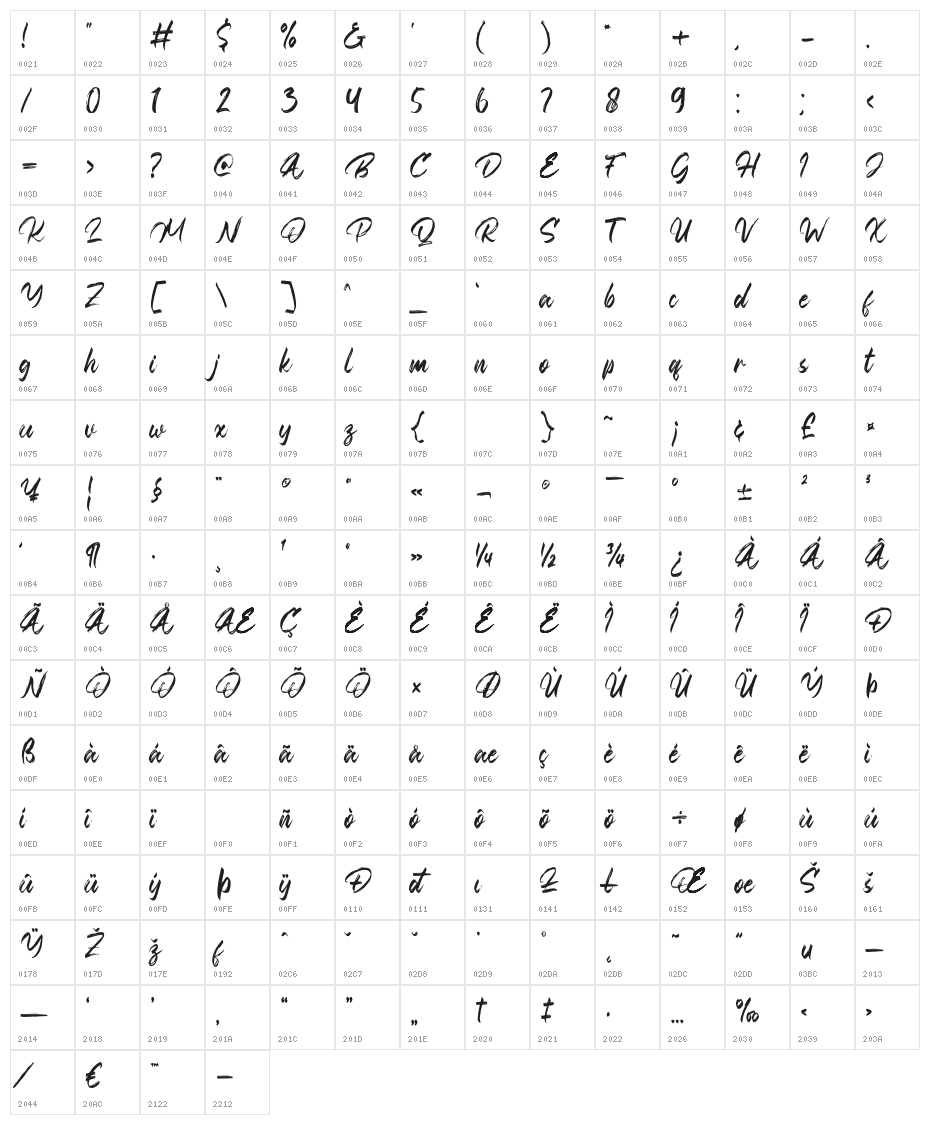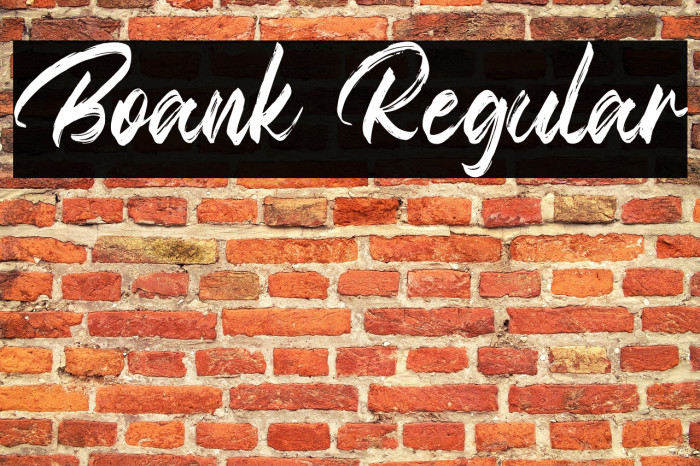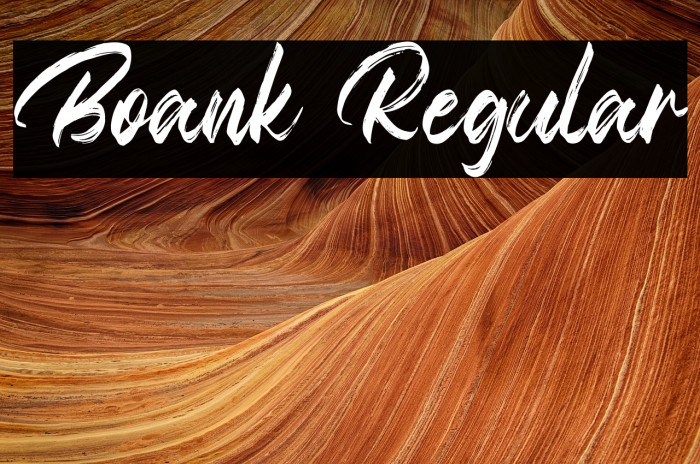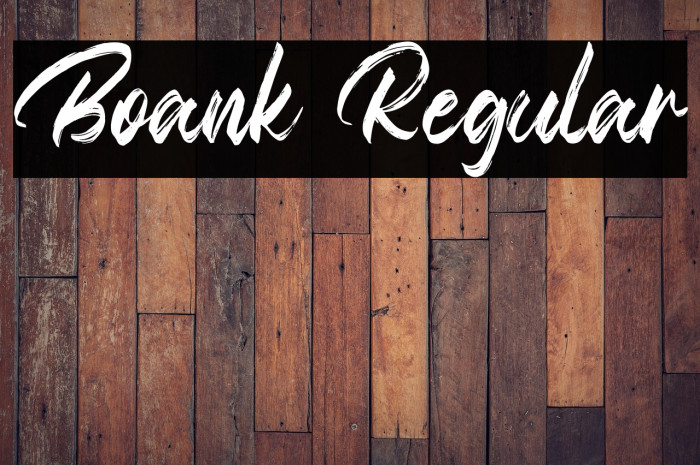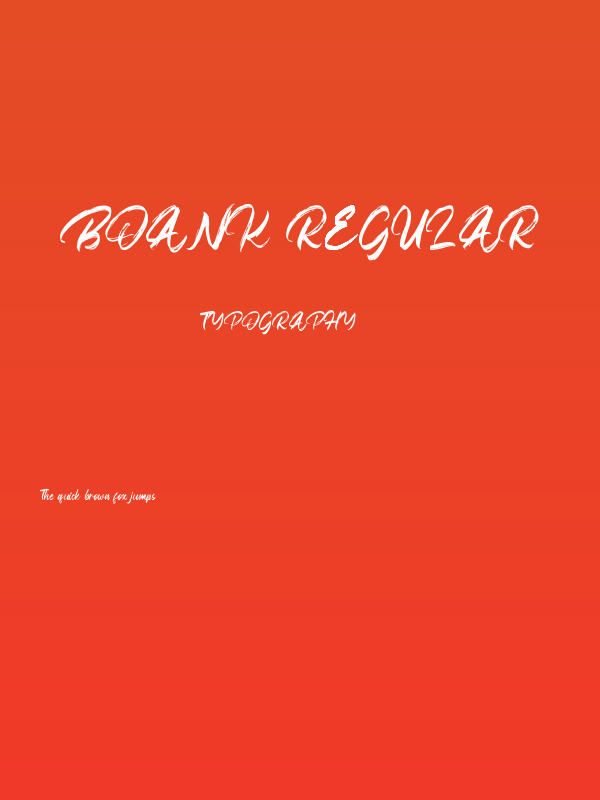
Boank Regular Font
Boank Regular Description
This font exudes a dynamic and expressive style, characterized by its bold, brush-like strokes that convey a sense of movement and energy. The uppercase letters are particularly striking, with their sweeping curves and sharp angles, while the lowercase letters maintain a consistent flow that enhances readability. The numerals and special characters are equally bold, ensuring they stand out in any design. This font's overall aesthetic is both artistic and modern, making it suitable for a variety of creative applications.
| Overall Style | Modern, Artistic |
| Proposed Projects | Ideal for branding projects, artistic posters, event invitations, and any design requiring a bold, expressive touch. |